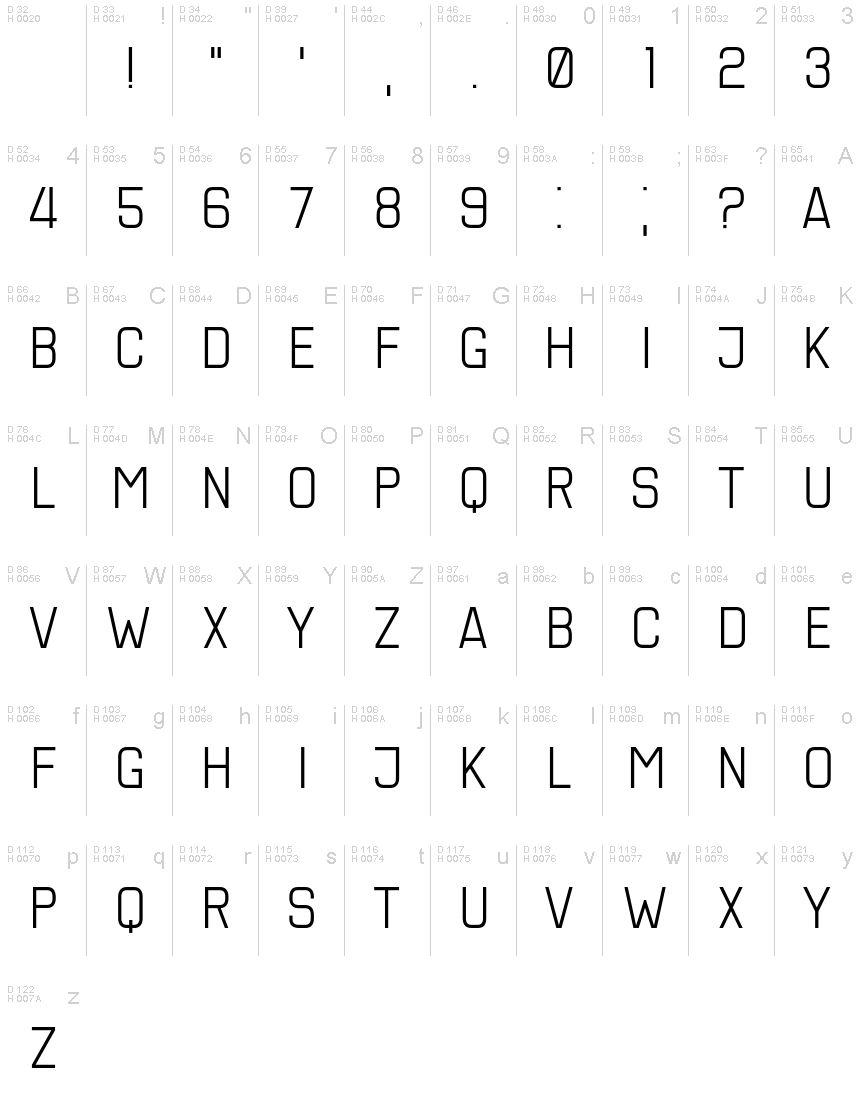
Devotee Regular
Devotee font by Vladimir Nikolic features clean lines, minimalistic construction, and a futuristic feel in one exceptional design piece. This free sans serif font is a modern and geometric one with condensed width and exceptional elegance. It also has smooth curves – lines that seamlessly turn to round or pointy edges within its tiny but matching letter heights.
The condensed devotee is a splendid choice for headlines, body text, web pages, blogs posters, flyers, landing pages typography treatments, logos and branding which can include business cards design as well. Use it to create labels and packaging of cosmetics or add it to your print magazine typography section!